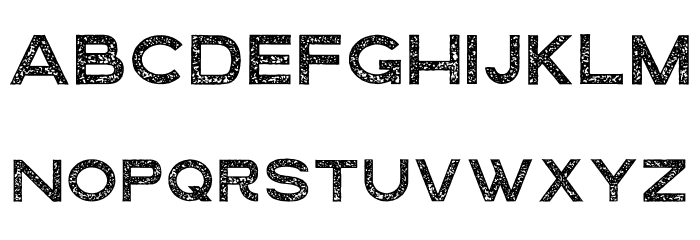
Loveolline Sans Ro F Font
This font features a bold, sans-serif style with a unique textured pattern filling each character, giving it a distinctive and eye-catching appearance. The uppercase letters are uniformly designed with straight lines and sharp angles, maintaining a modern and clean aesthetic. The texture within the letters adds a playful and artistic touch, making it suitable for creative projects. The font's structure is consistent, with even stroke widths and balanced proportions, ensuring readability while adding visual interest.
A bold, textured sans-serif font with a modern and artistic flair.
- Proposed Projects: Ideal for branding, posters, and creative design projects where a bold statement is needed.
- Overall Style: Modern, Decorative